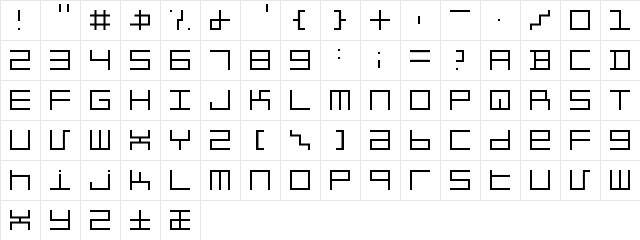
Item Light
Design Context for Item Typeface
Item takes a measured approach to typography — its balanced proportions and neutral character make it a reliable workhorse for both digital and print work. Its slender proportions lend an understated elegance to any composition.